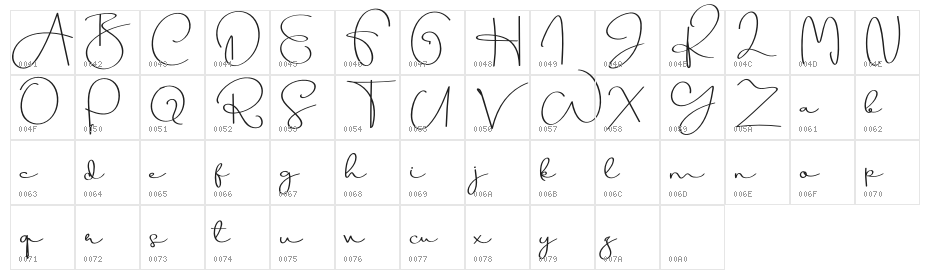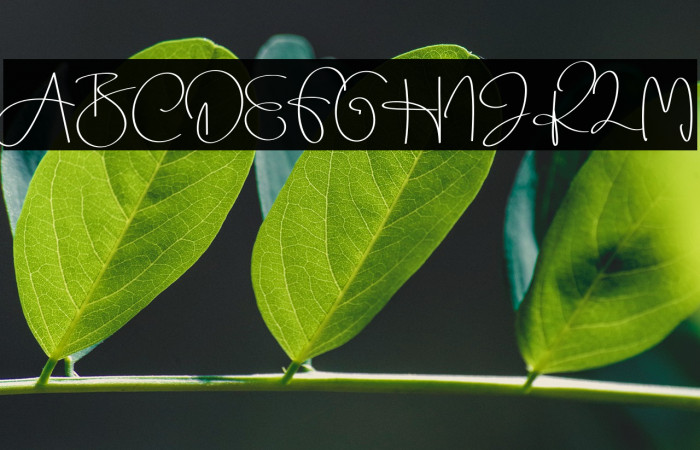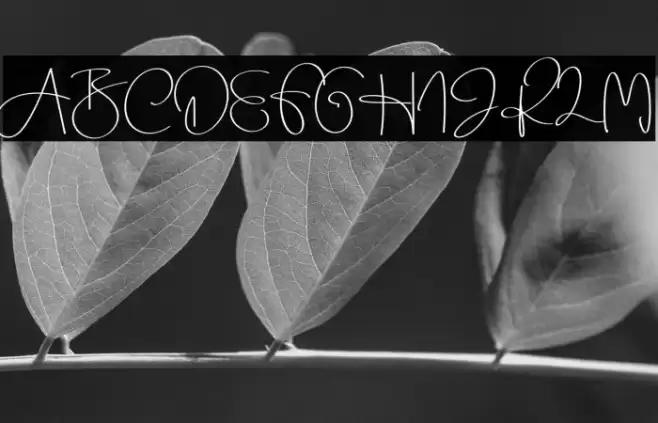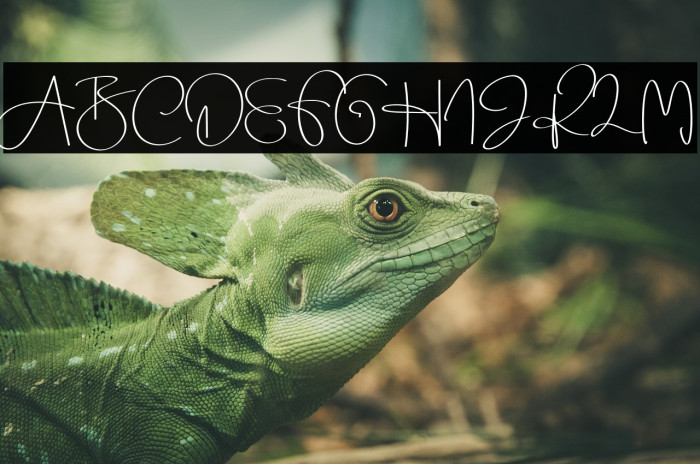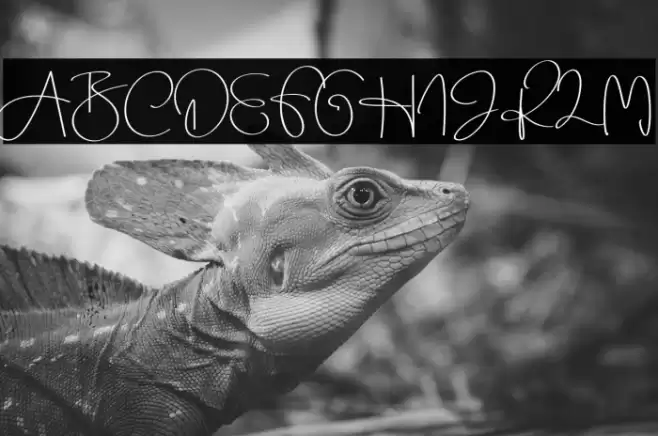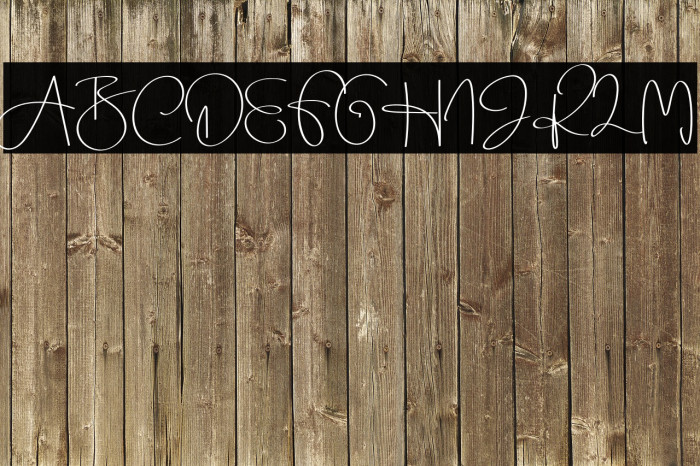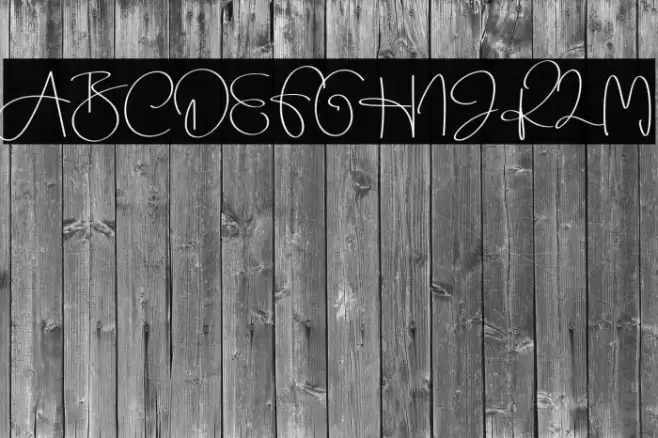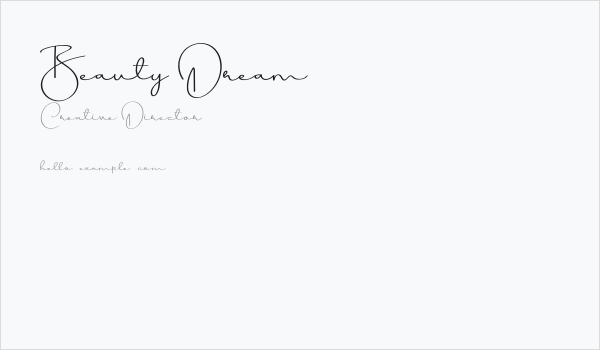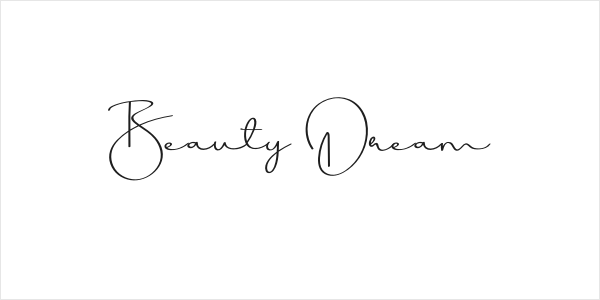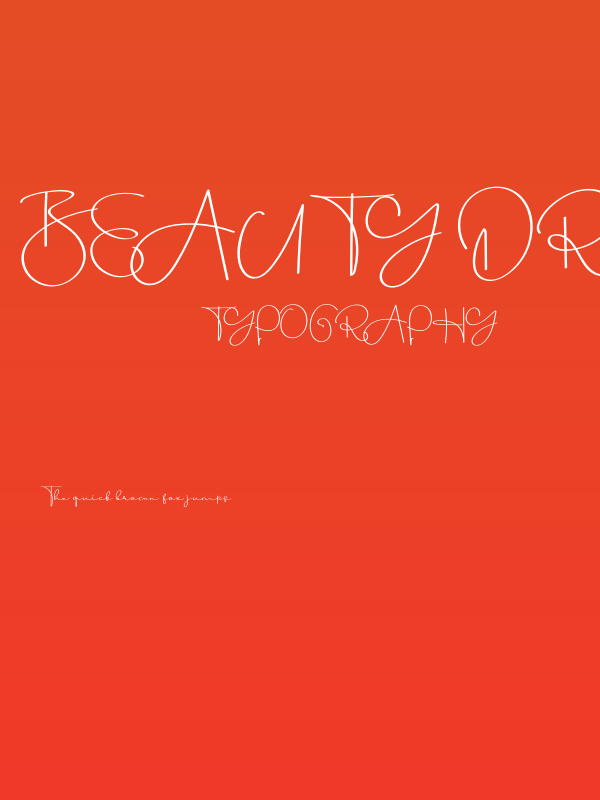
Beauty Dream Font
Beauty Dream Description
This font features an elegant and flowing script style, characterized by its smooth, continuous strokes and a handwritten appearance. The uppercase letters exhibit a whimsical and artistic flair, with loops and curves that add a playful touch. The lowercase letters maintain a consistent flow, enhancing the font's overall cohesiveness. The design is both sophisticated and approachable, making it suitable for a variety of creative applications. Its delicate lines and graceful curves evoke a sense of romance and charm, ideal for projects that require a personal and intimate feel.
| Overall Style | Romantic, Elegant |
| Proposed Projects | Ideal for wedding invitations, greeting cards, personal branding, and romantic-themed designs. |